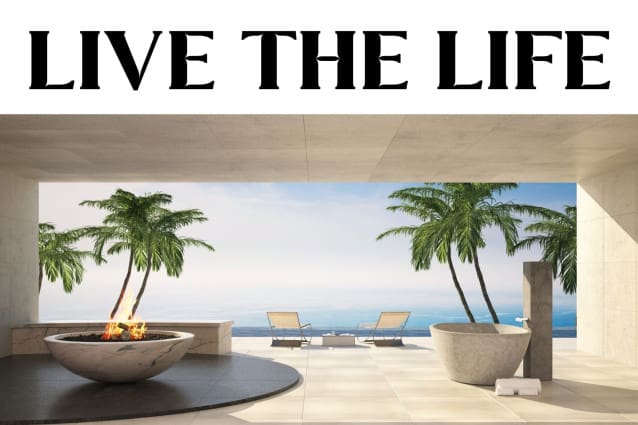
Pluvix Luxury Font
Pluvix Luxury Font is perfect for you! It’s stylish, bold, and easy to use, making your projects look polished and professional. Whether you’re designing a logo, invitation, or social media post, this font gives your work a luxury touch without any effort.